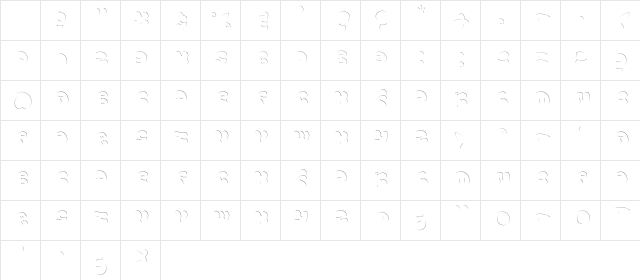
Complete Vandal Blow Graffiti Inner Regular glyph index. Displaying only characters natively supported by Vandal Blow Graffiti Inner Regular font.
Vandal Blow Graffiti Inner is a composed and adaptable typeface that performs quietly and consistently across a wide range of design contexts.